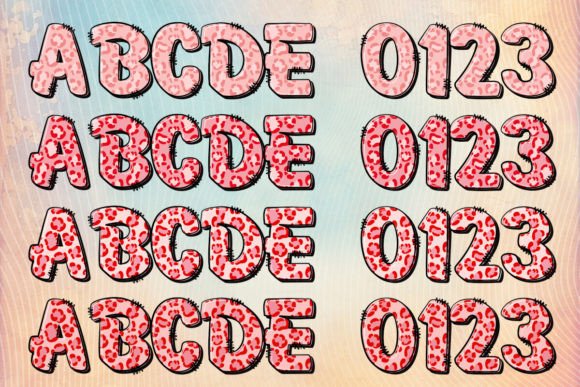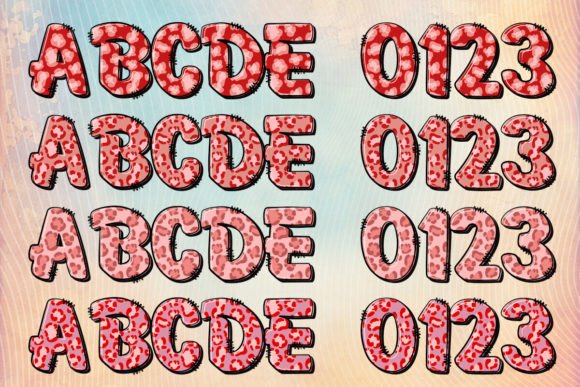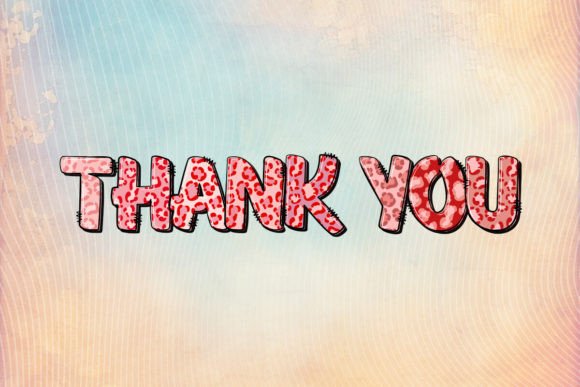
Introduction to Red Leopard Font
Unleash your wild side with the Red Leopard font— a tantalizing typographic journey into the heart of the jungle.
This font, beautifully embedded with enchanting leopard skin pattern, seamlessly merges creativity with exoticism, reminding us of the majestic cheetah’s striking skin The escapade doesn’t end here, this font takes a unique twist; it’s not just an alphabet, it’s a leopard patterned alphabet, giving a primal, yet polished look to your text.
Key Features of Red Leopard Font